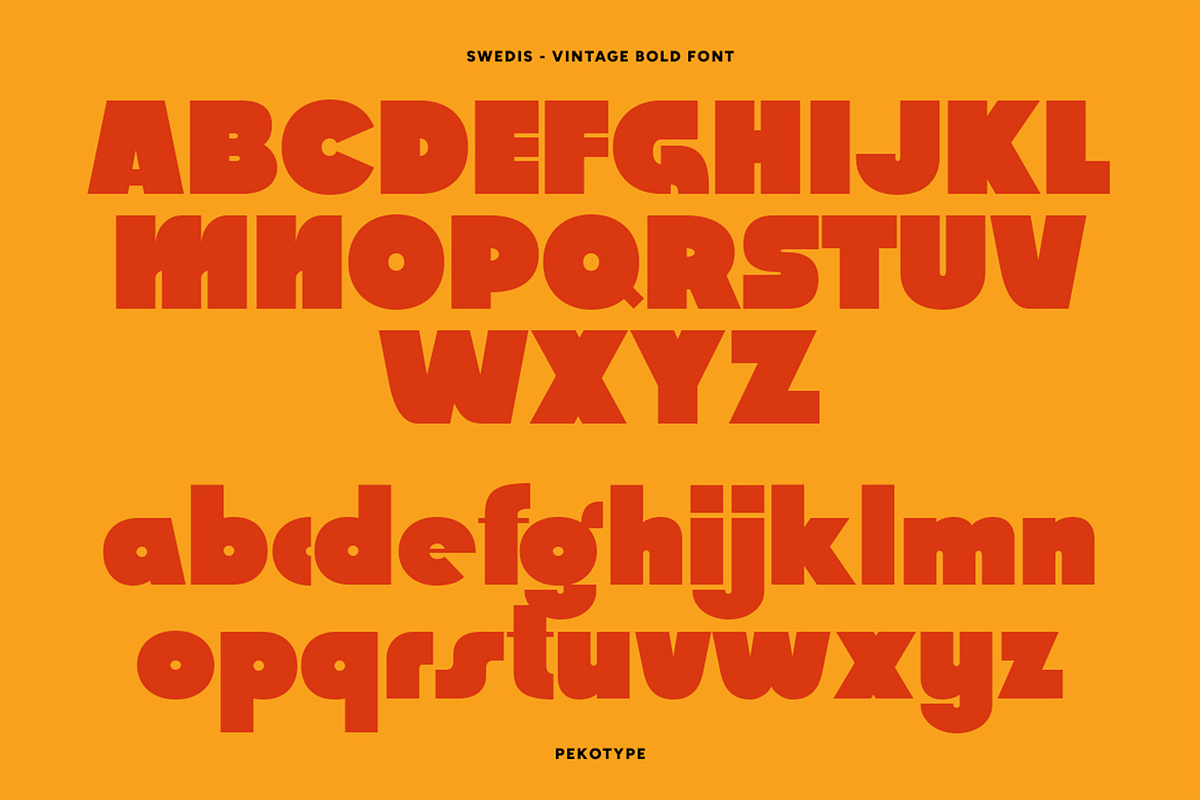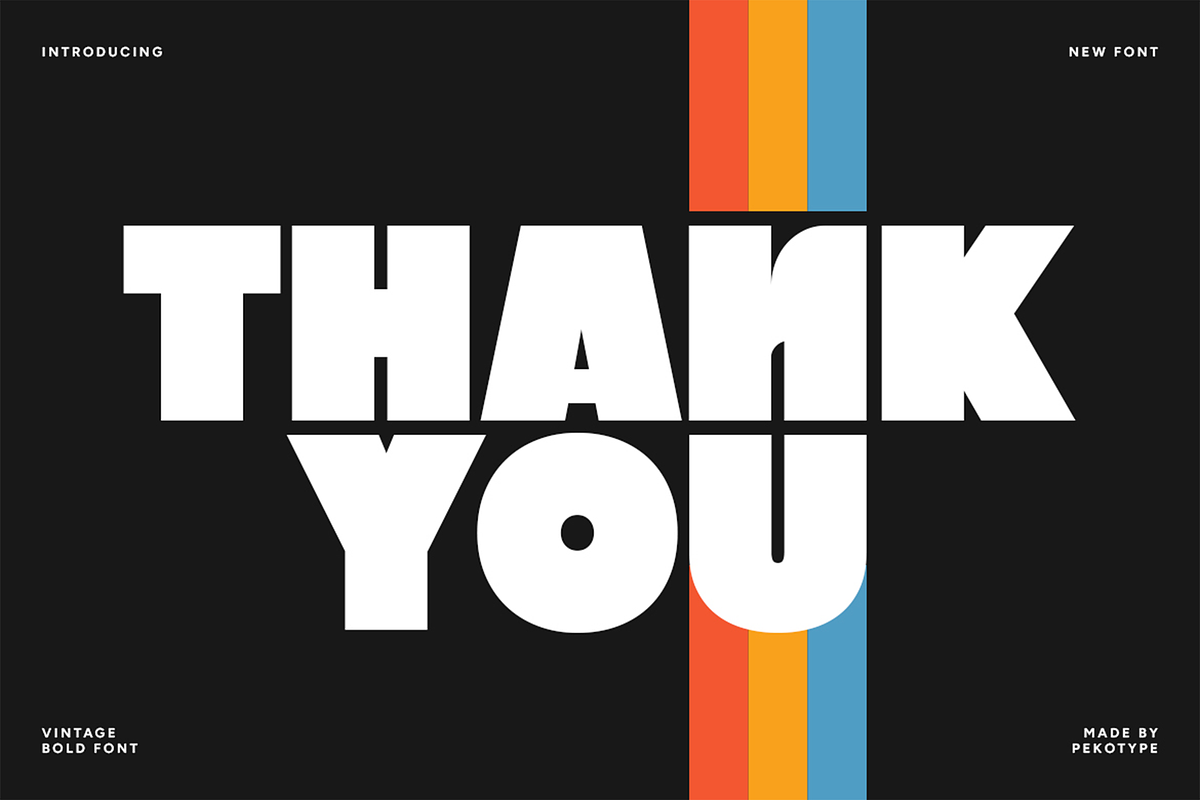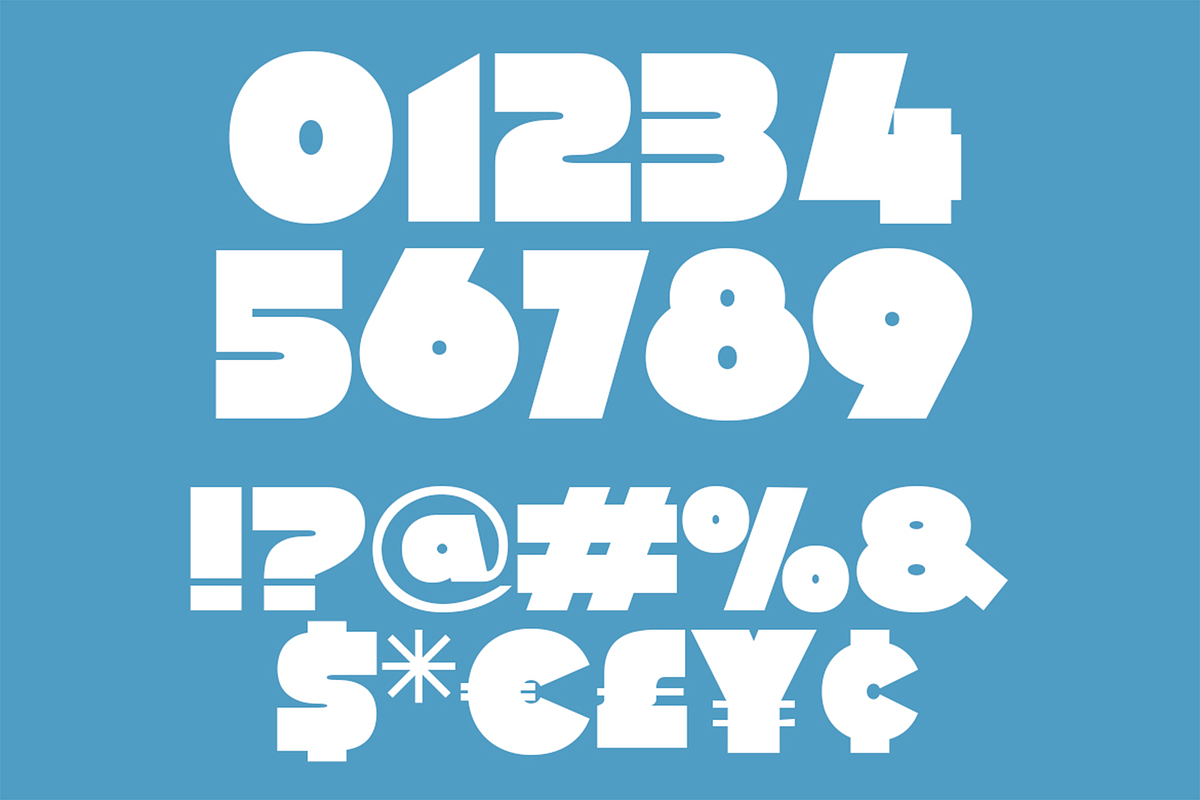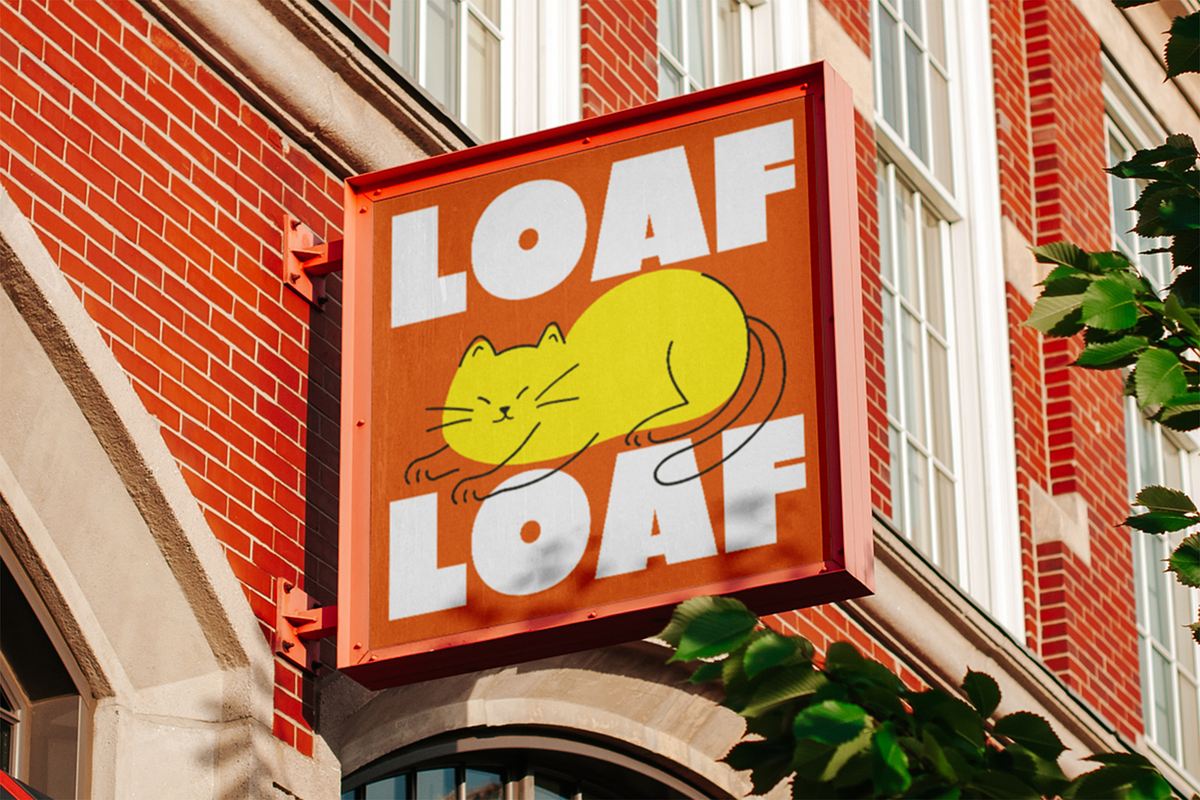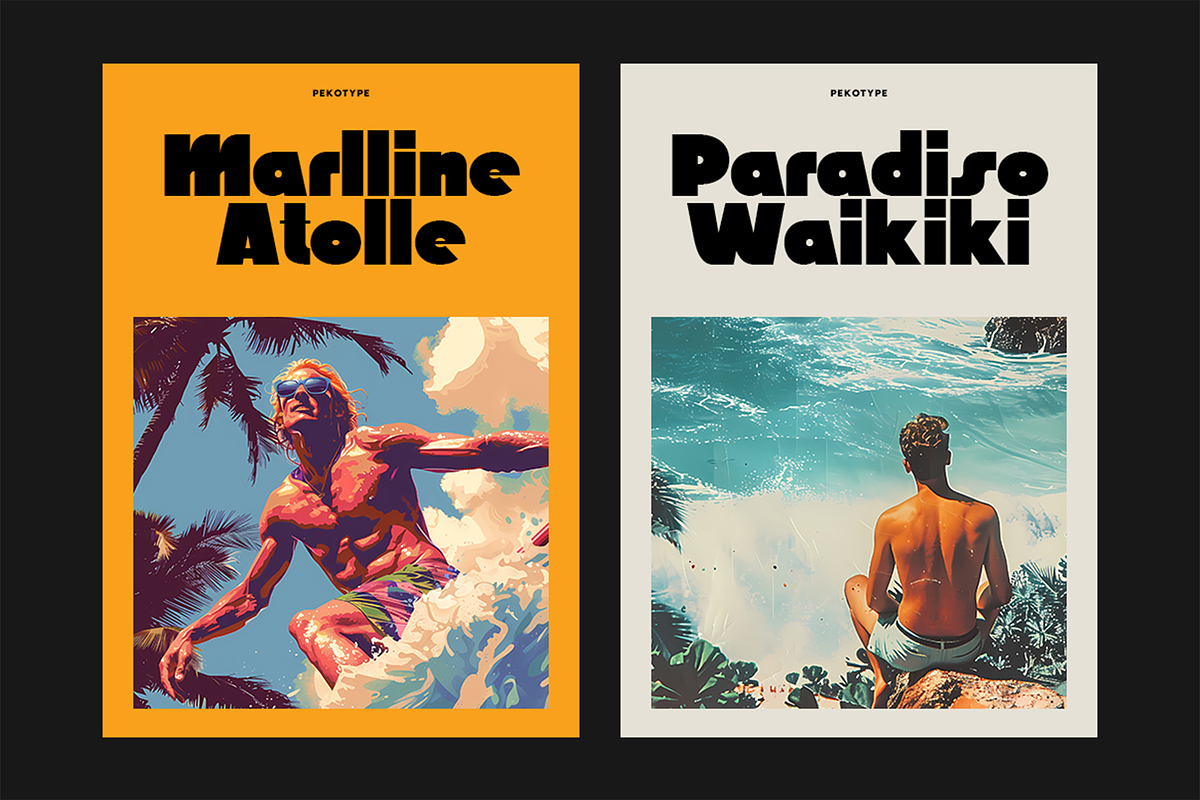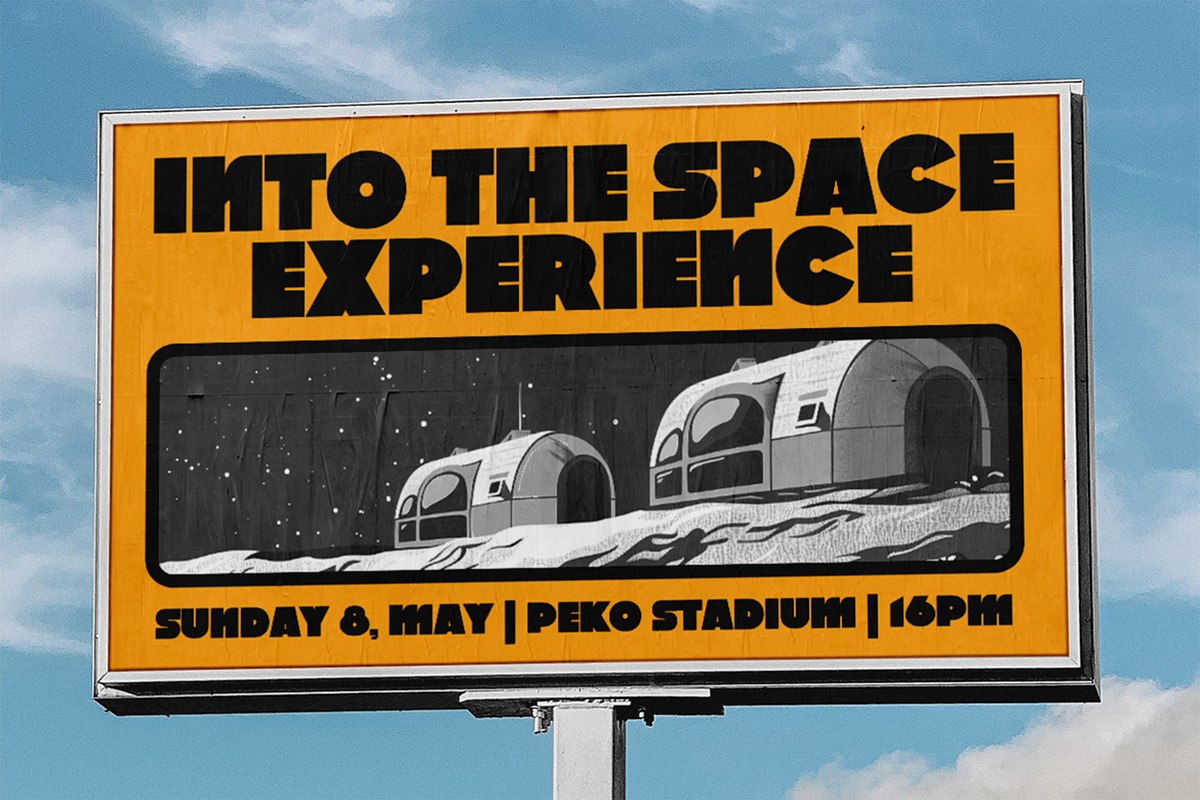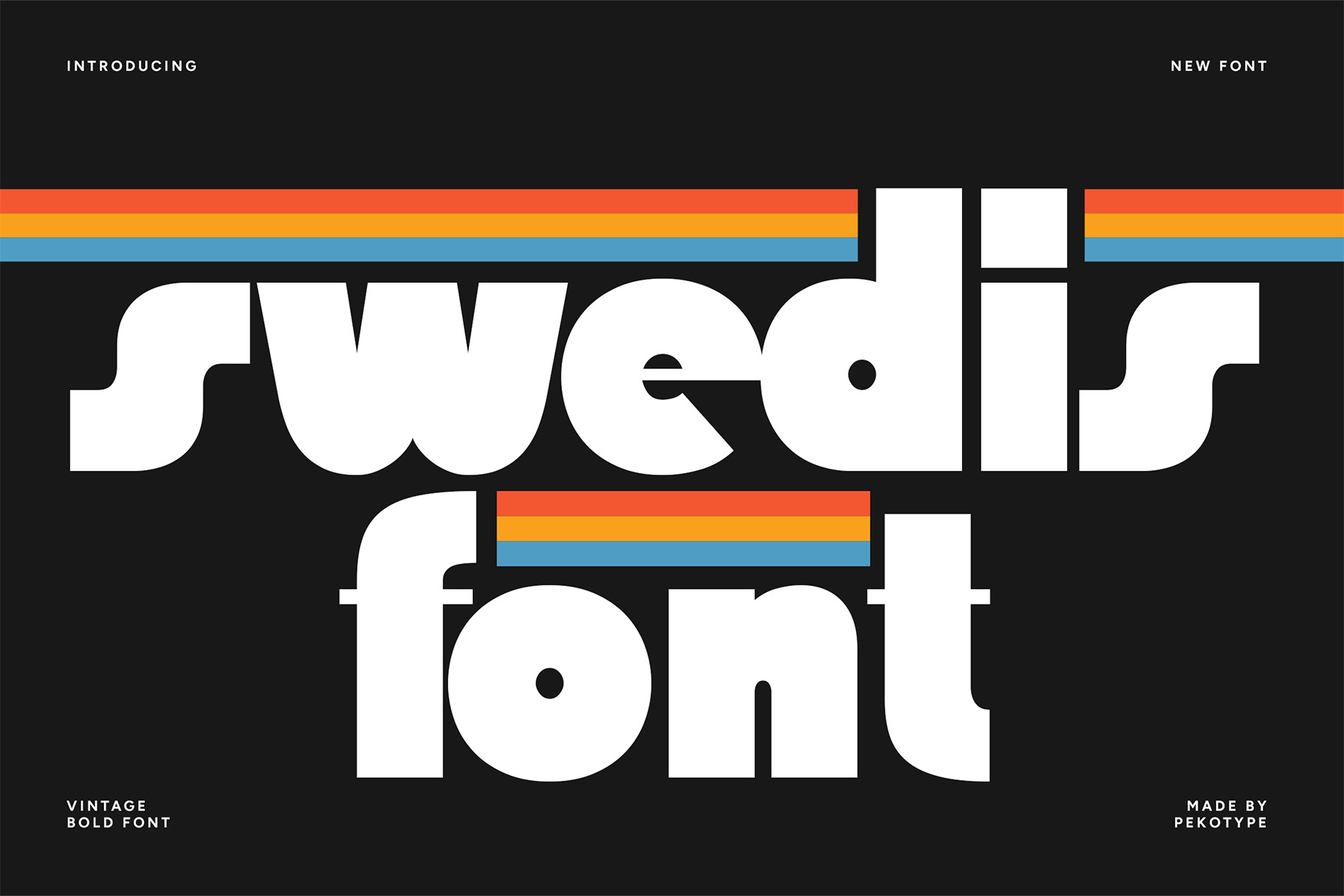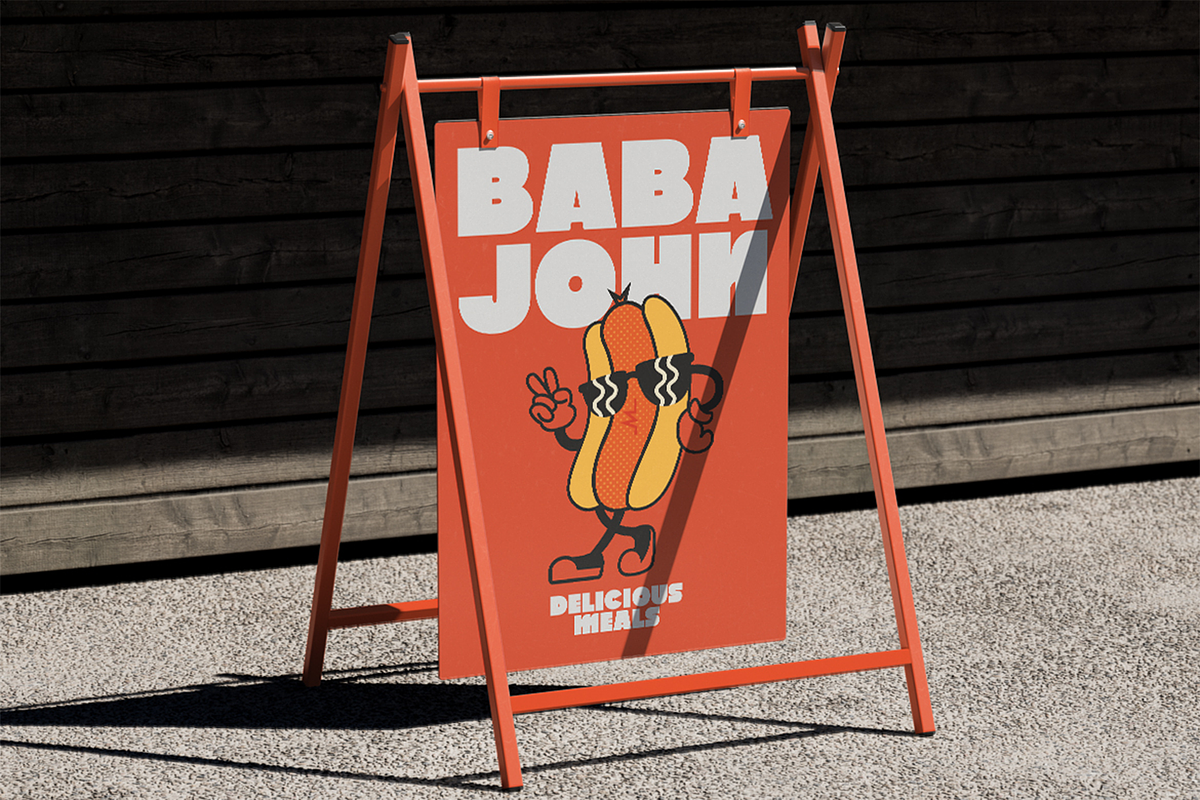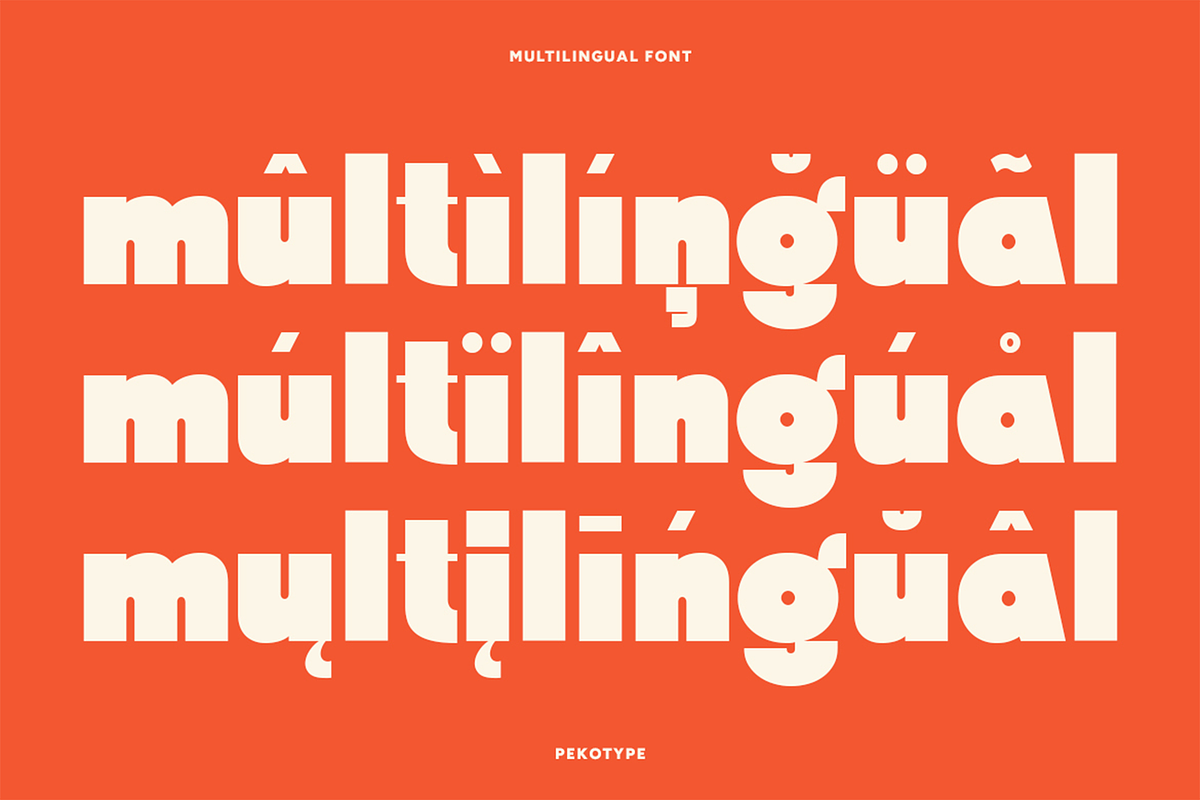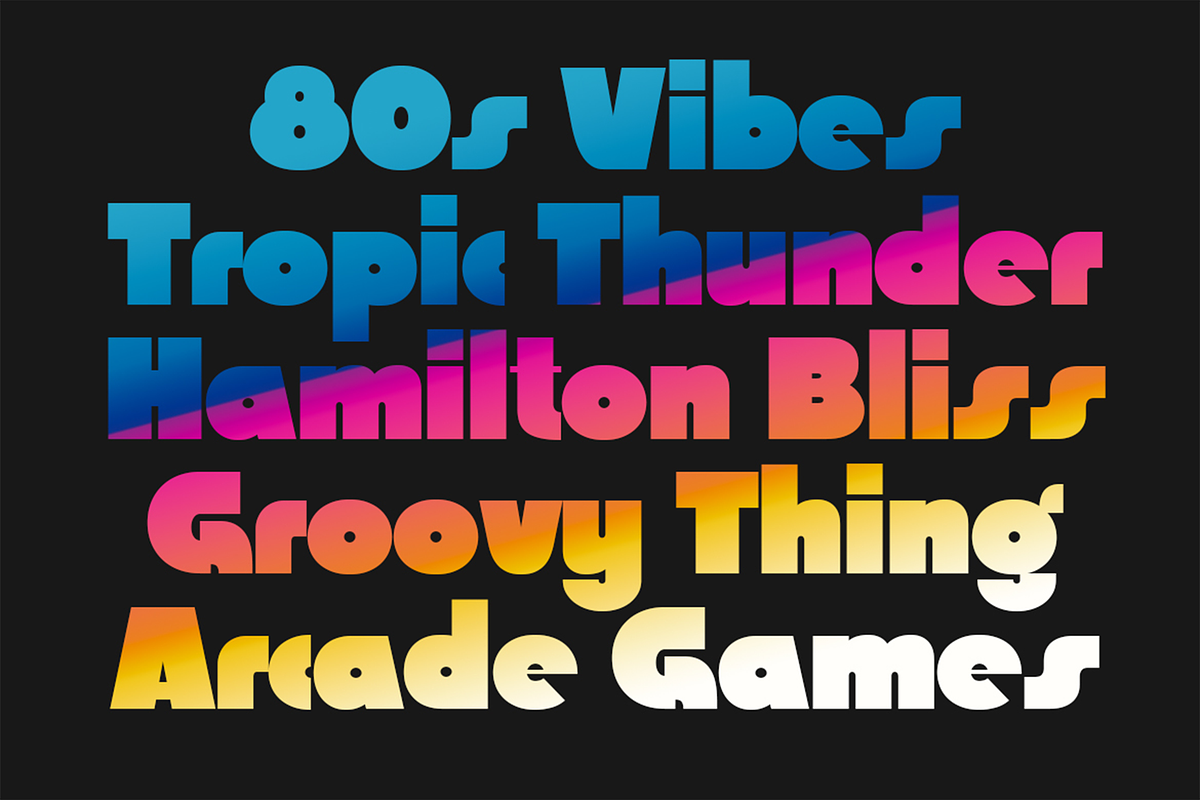
Swedis - Vintage Bold Font
SWEDIS – Bold Vintage Display Font with a Modern 80s Twist
Introducing SWEDIS, a bold and nostalgic display typeface that brings the power of the 80s into the modern design era. With its super bold, fat, and blocky letterforms, SWEDIS stands loud and proud — perfect for grabbing attention in all the right ways.
Inspired by retro aesthetics and revamped for contemporary use, SWEDIS is your go-to font for branding, logos, movie posters, promo materials, and social media graphics. Whether you're designing for a music event or a vintage-inspired product line, SWEDIS delivers bold impact with effortless style.
This font seamlessly fuses vintage charm with modern design trends, making it versatile and easy to pair with other design elements. Stand out from the crowd and make your message unforgettable with SWEDIS.
- Number, symbol, & punctuation
- Retro-modern aesthetic
- Perfect for headlines, logos, posters, and more
If you're looking for a bold 80s font that’s stylish and timeless, SWEDIS is the perfect choice. Add a punch of personality to your next design project — download SWEDIS today!